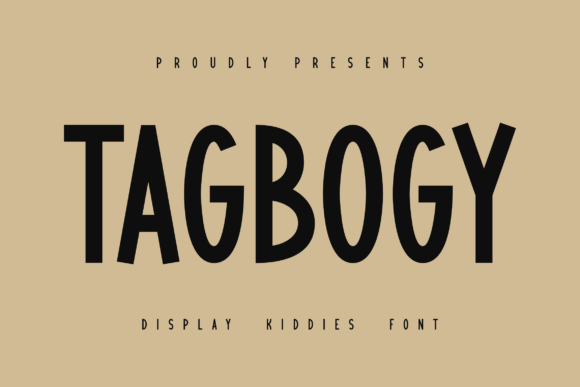
Introducing Tagbogy Font - the best font for modern and stylish projects! Created by Monoletter, this sleek and bold display font is designed to grab attention and elevate any project to new heights.
Featuring clean lines and a contemporary look, Tagbogy is the perfect choice for headlines, posters, and branding. Its unique style will make your project stand out from the crowd and leave a lasting impression on your audience.
Whether you're creating a website, designing a logo, or working on a marketing campaign, Tagbogy will help you achieve the professional and polished look you desire. This font is versatile and can be used in a wide range of projects, making it an essential tool for any designer.
Tagbogy's modern and eye-catching appearance is matched only by its ease of use. With its user-friendly interface and intuitive design, you'll be up and running with Tagbogy in no time.
In summary, Tagbogy is the perfect font for any project that demands a fresh and stylish touch. With its clean lines, boldness, and contemporary look, it is sure to capture attention and elevate your project to the next level. So why wait? Download Tagbogy today and start creating your masterpiece!